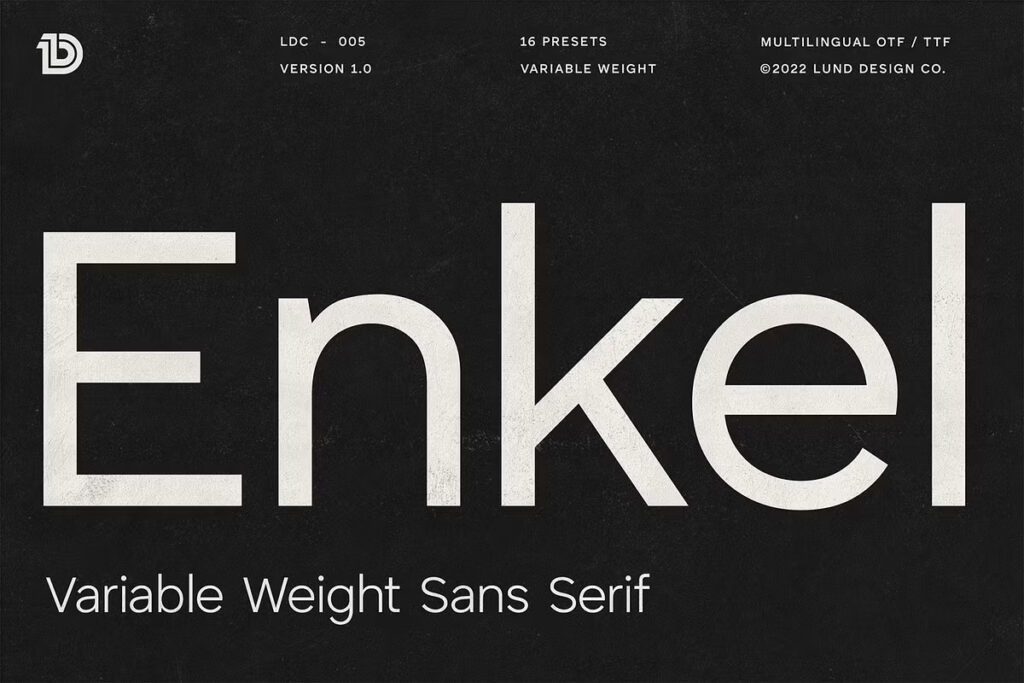
Introducing ENKEL Variable Sans Serif: A Versatile Font Family for All Your Design Needs
If you’re searching for a modern, versatile font that balances clean lines and flexibility, look no further than ENKEL Variable Sans Serif. Designed as a blend of Geometric and Neo-grotesk styles, this sans serif font family is perfect for everything from eye-catching headlines to long-form text. Whether you’re creating website designs, branding materials, or editorial layouts, ENKEL offers a powerful display face for larger sizes and easy legibility for smaller text.
Why Choose ENKEL Variable Sans Serif?
ENKEL is not just another sans serif font. With its wide range of stylistic sets and variable weights, this font family is adaptable to all types of projects. From the ultra-thin to the boldest weights, you’ll find the perfect balance for any design. Its unique mix of geometric precision and neo-grotesque readability makes ENKEL ideal for a broad spectrum of design applications, whether it’s used for headlines or body copy.
Key Features of ENKEL Variable Sans Serif:
18 Variable Weights: Includes Thin, ExtraLight, Light, and many more, allowing you to customize your designs with just the right weight.
Oblique Versions: Each weight comes with a corresponding Oblique style, offering more dynamic typographic choices.
Geometric Meets Neo-grotesk: The blend of geometric shapes and the clean, modern appeal of neo-grotesk design provides both impact and readability.
Accents & Multilingual Support: ENKEL includes full support for accented characters and multiple languages, ensuring your designs can reach a global audience.
Versatility: Whether used for large display text or smaller, detailed copy, ENKEL’s legibility and clean lines ensure that it adapts to a wide range of design applications.
Best Uses for ENKEL Variable Sans Serif:
Headlines and Display Text: With its geometric styling and multiple weights, ENKEL works beautifully as a display font for eye-catching headlines.
Editorial and Web Design: Its readability in smaller sizes makes ENKEL a great choice for long-form text in editorial layouts and websites.
Branding: The versatility of the ENKEL font family ensures your brand’s typography stands out, whether for logos, packaging, or digital branding.
Multilingual Projects: ENKEL’s comprehensive character set supports multiple languages, making it ideal for global brands and projects.